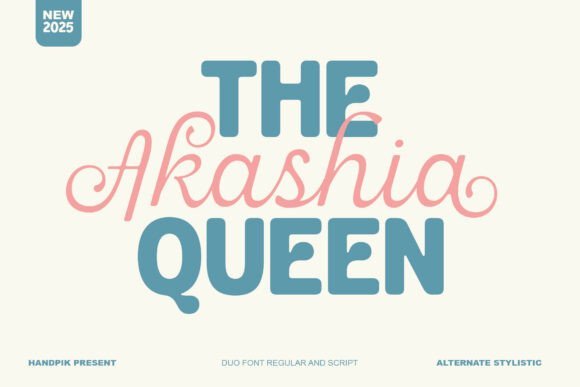
Introduction to Akashia Font
The Akashia Queen is a charming duo font that combines a bold sans serif with a flowing script.
Perfectly balanced between playful and elegant, this font duo brings versatility to your projectsβ€”from feminine branding and social media graphics to invitations and packaging The contrast between the solid sans and delicate script makes it ideal for modern designs that need both strength and grace.